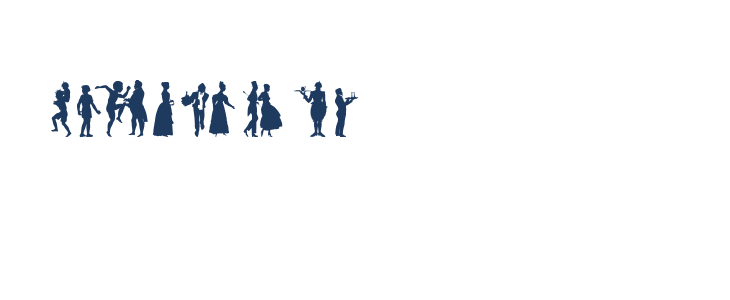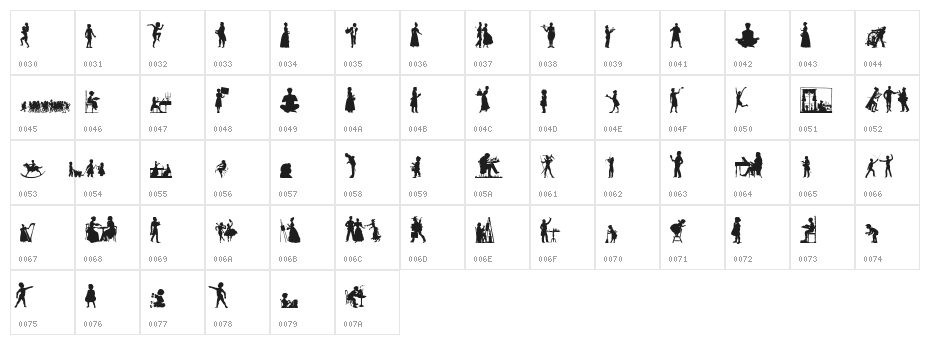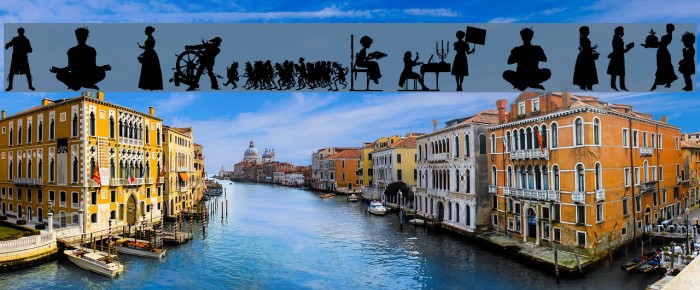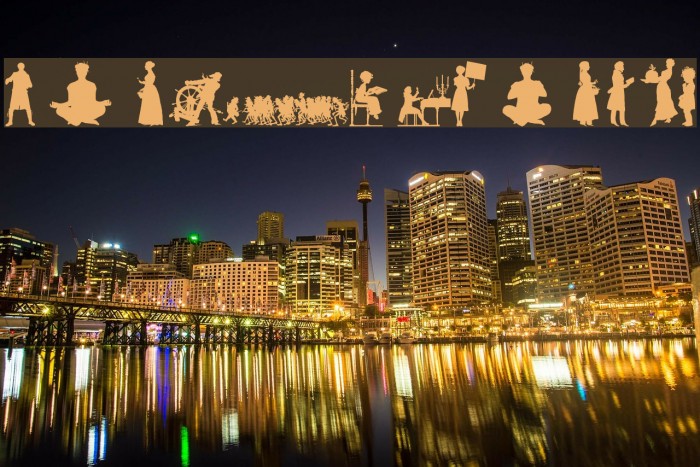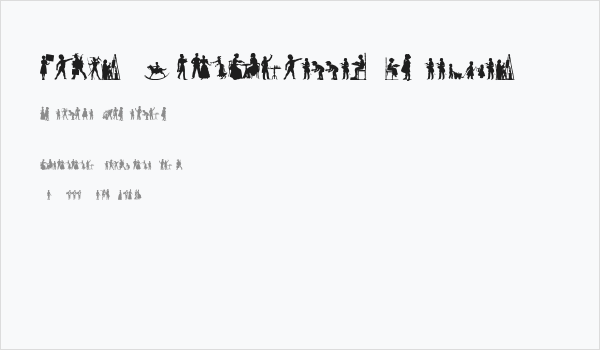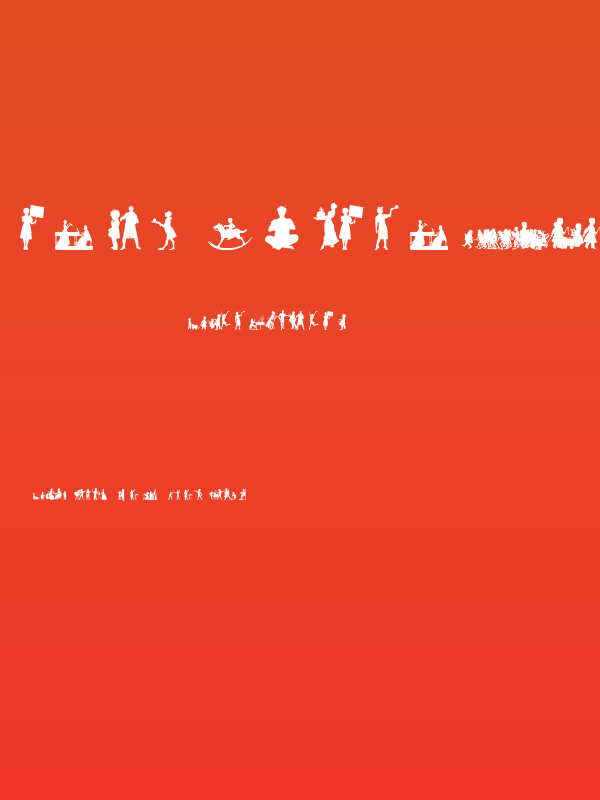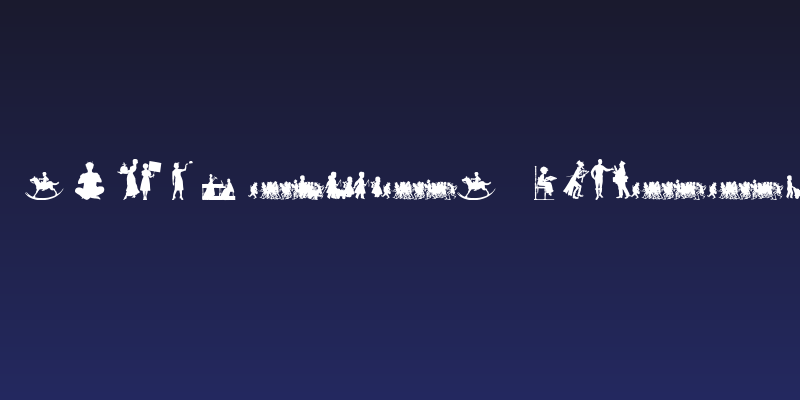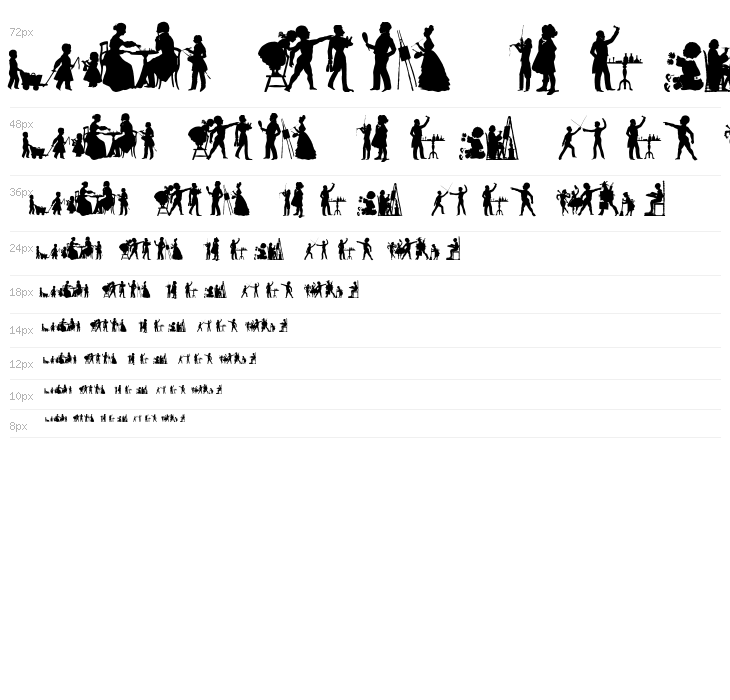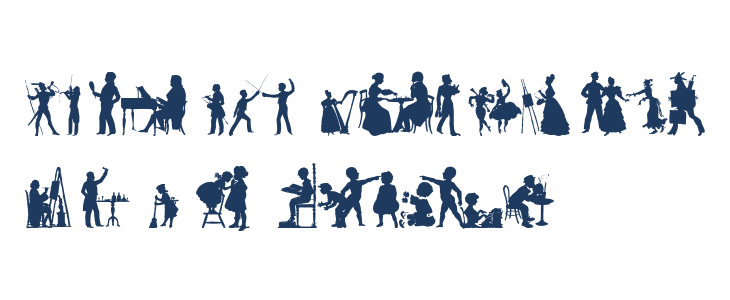
Human Silhouettes Free Ten Font
Human Silhouettes Free Ten Description
A collection of detailed human silhouette illustrations depicting various activities and poses, including children playing, people dancing, sitting, and serving. The silhouettes have a vintage, classical style with intricate outlines and varied postures.
Overall StyleVintage, Classic
Use CaseDecorative illustrations, Posters, Storytelling visuals
Proposed ProjectsUse in vintage-themed designs, storytelling visuals, educational materials, theatrical posters, and decorative elements in print or digital media.